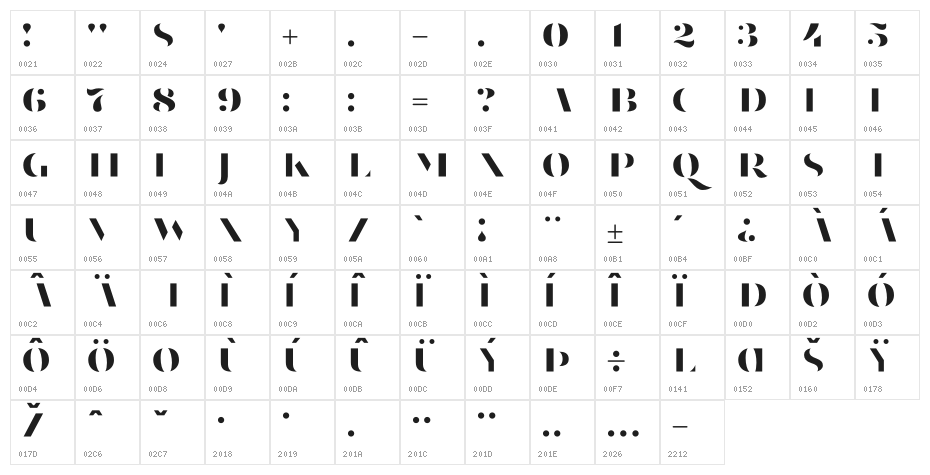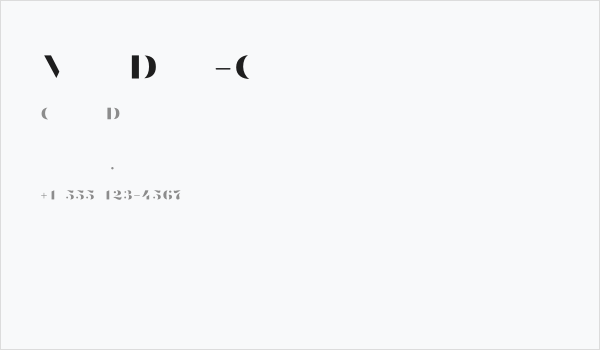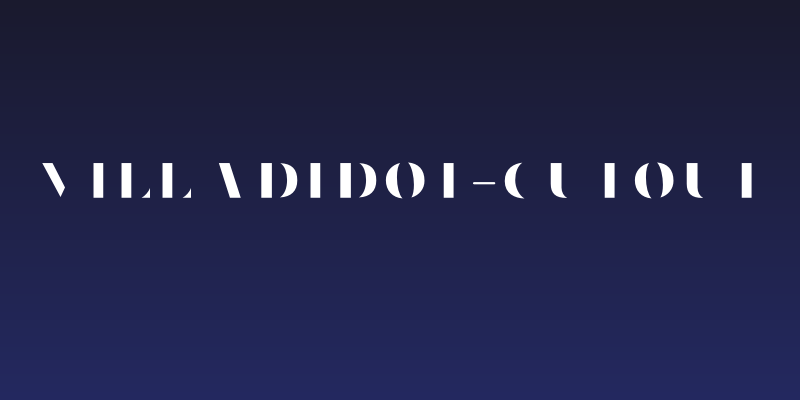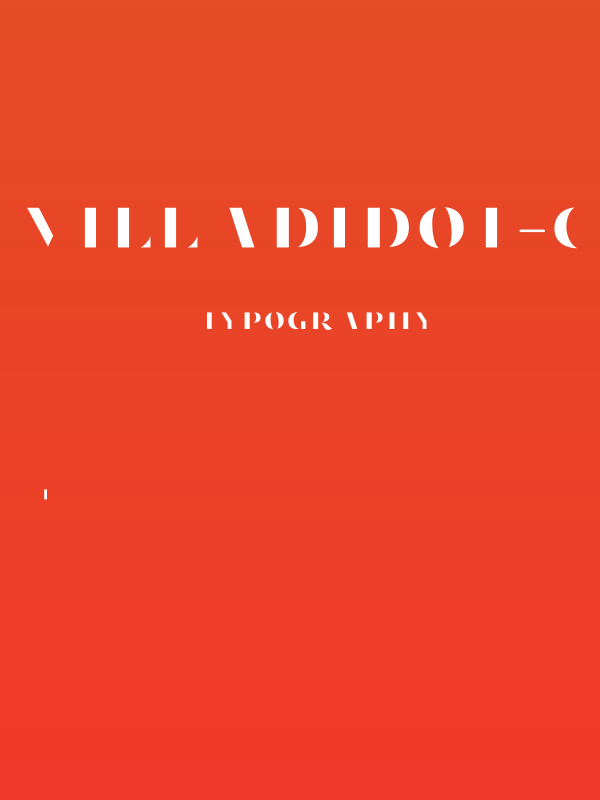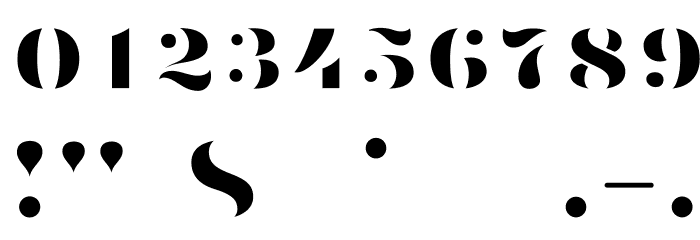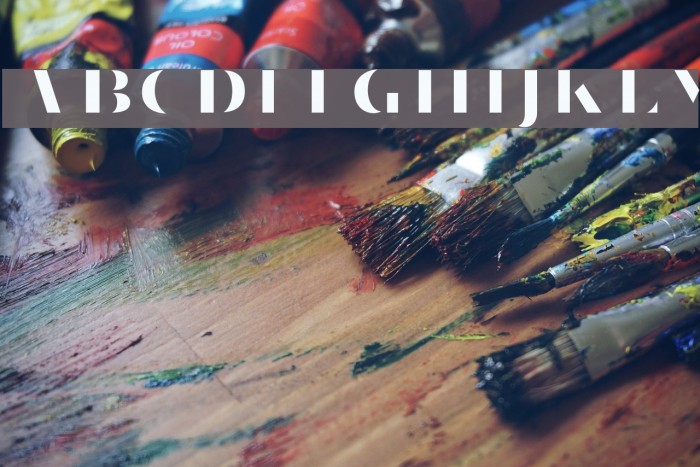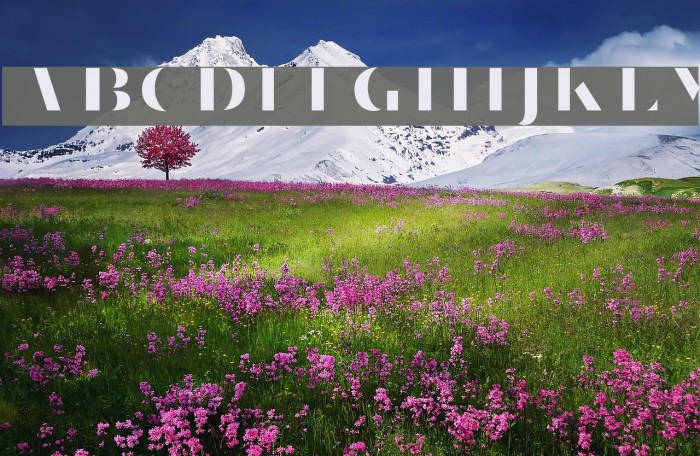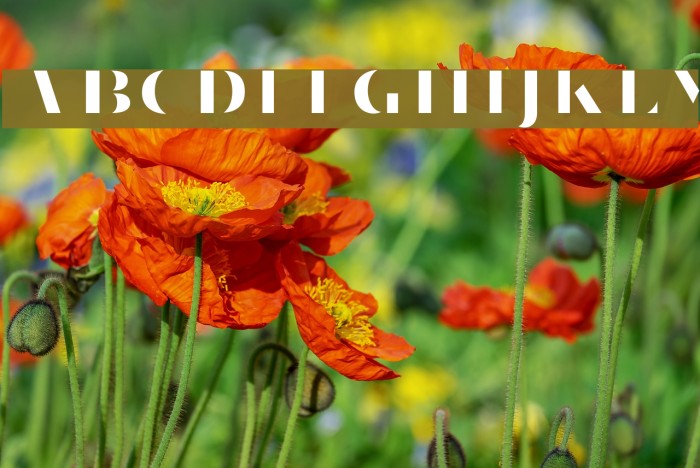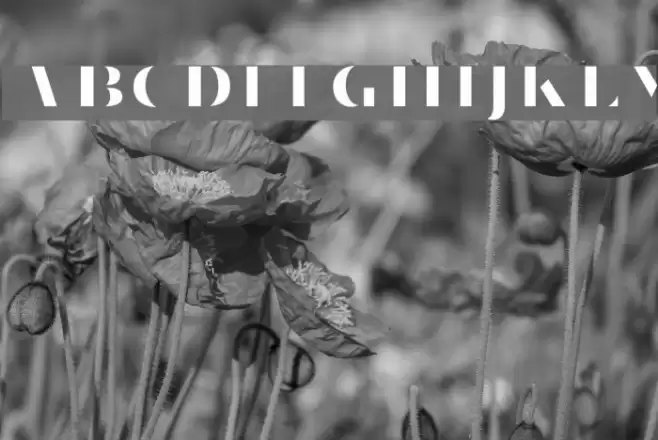
VillaDidot-Cutout Font
VillaDidot-Cutout Description
This font features a distinctive cutout style, where portions of each character are removed to create a striking visual effect. The uppercase letters are bold and geometric, with sharp angles and clean lines that give them a modern and artistic appearance. The numerals and special characters follow the same design principles, maintaining consistency throughout the set. The font's unique aesthetic makes it ideal for creative projects that require a bold statement. Its high contrast between thick and thin strokes adds to its dramatic flair, making it stand out in any design.
| Proposed Projects | Ideal for branding, posters, album covers, and other creative projects that require a bold and artistic touch. |